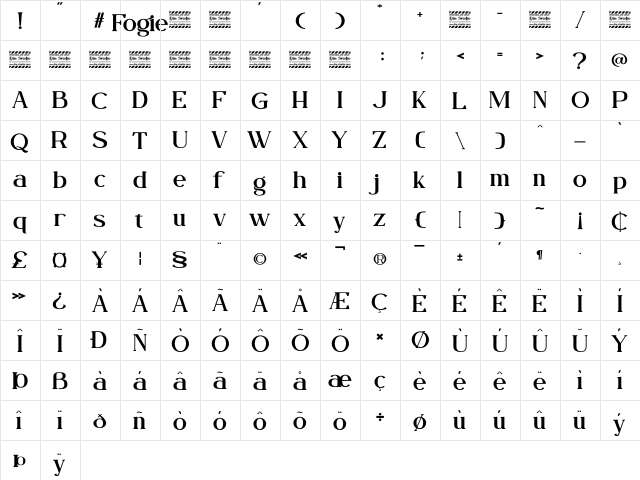
Fogie Personal Use Regular Font Preview
Fogie Personal Use Regular
Fogie Personal Use Regular Font Details
| Designer | Donis Miftahudin |
Design Context for Fogie Personal Use Typeface
Fogie Personal Use is a composed and adaptable typeface that performs quietly and consistently across a wide range of design contexts.